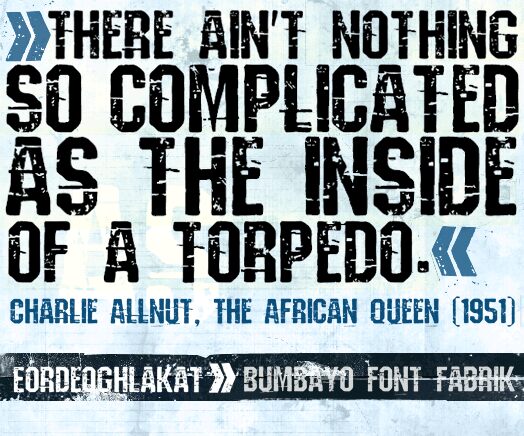
Eordeoghlakat by Bumbayo Font Fabrik is a free eroded caps display font with tall, blunt letterforms and a hard-worn industrial surface. The damage is coarse, deep, and irregular.
Designers working in punk, metal, and underground culture will find it suited to gig posters, apparel, and rough-edged event branding. Its battered print texture can also become part of an editorial concept for music magazines, especially in cover lines about noisy or confrontational subjects.